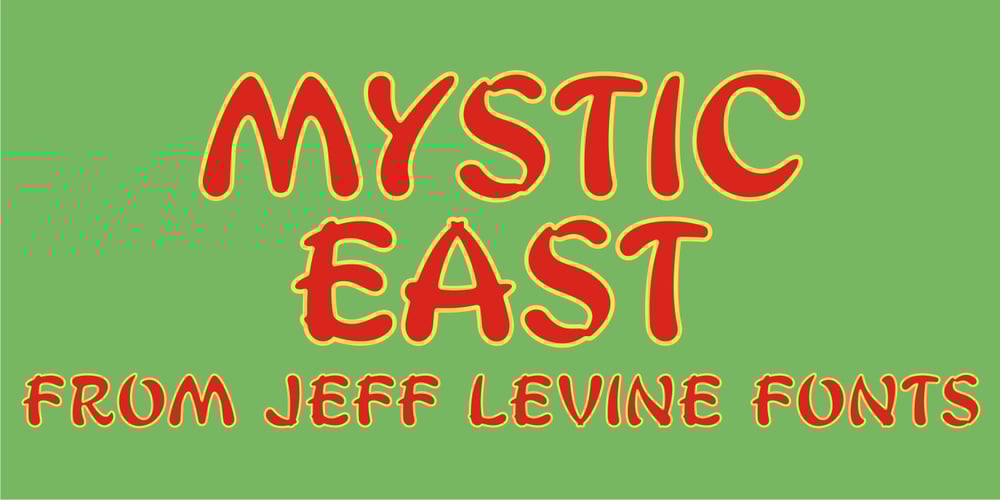
Mystic East JNL Font Family was designed by Jeff Levine and published by Jeff Levine. Mystic East JNL contains 1 styles and family package options. The cast credits for the 1954 film “Hell’s Half Acre” (Wendell Corey, Evelyn Keyes and Elsa Lanchester) provided the basis for Mystic East JNL.